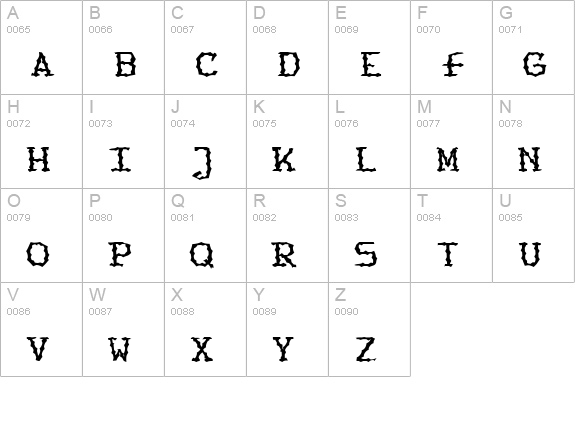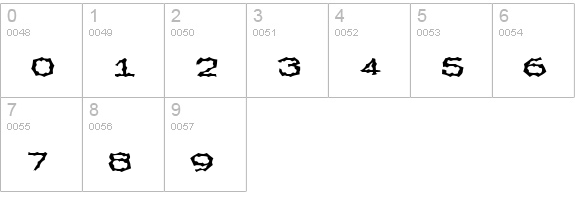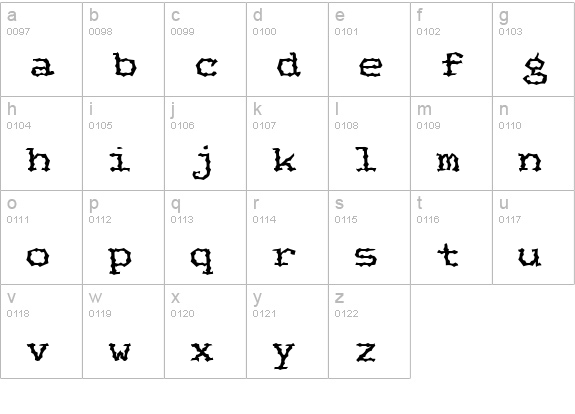
FeggoliteRuffled Font Details
Introducing FeggoliteRuffled font, a whimsical and playful typeface that is sure to add a touch of charm to your designs. With its unique ruffled edges and delicate curves, FeggoliteRuffled exudes a sense of elegance and creativity. This font is perfect for projects that require a touch of whimsy, such as invitations, greeting cards, and branding materials. Best of all, FeggoliteRuffled is free to download at FontsMarket.com! Take advantage of this beautiful and versatile font to elevate your designs and make them truly stand out. Whether you're a designer looking to add a fun twist to your work or a creative individual in need of a unique typeface, FeggoliteRuffled is sure to inspire and delight. Download it today and let your creativity soar with this charming font.